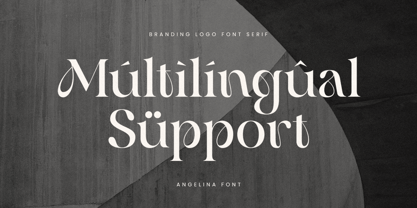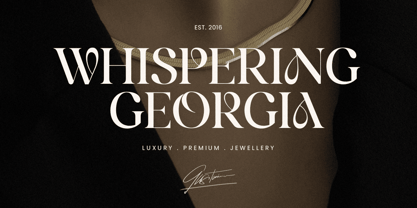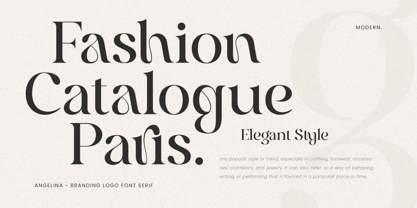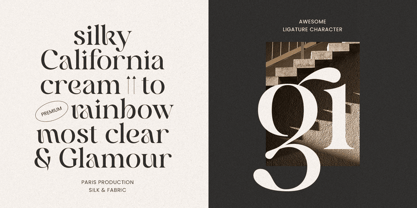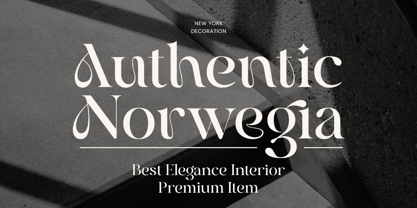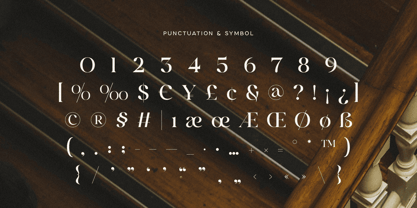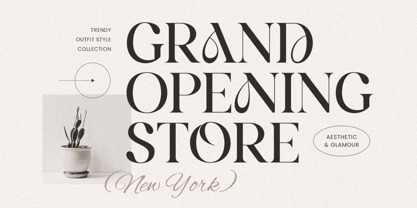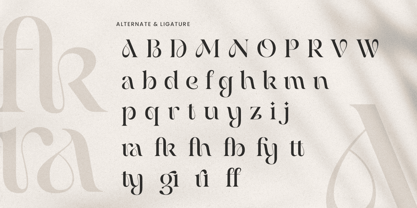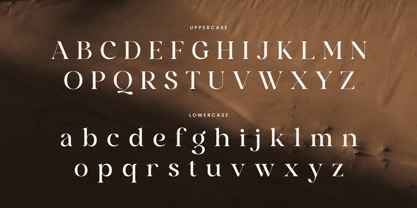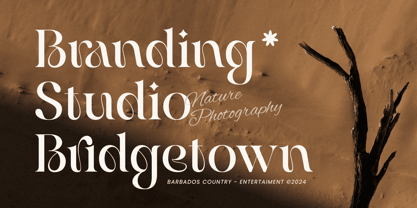
Angelina SS
by Sensatype Studio
The Angelina SS Font Family was designed by Zamroni Hamzah and published by Sensatype Studio. Angelina SS contains 2 styles and family package options. More about this family
Angelina - Branding Logo Font
Angelina is a beautifully refined branding logo font that exudes elegance and sophistication. With its delicate curves and classic forms, Angelina is perfect for luxury brands, fashion labels, and creative businesses seeking a timeless and graceful logo. Its stylish design ensures a striking visual presence that resonates with modern branding needs.
Designed with both functionality and aesthetics in mind, Angelina is versatile enough for logos, websites, business cards, and packaging. The font’s smooth, flowing lines add a sense of elegance to any project, helping brands make a lasting, memorable impression.
Angelina comes with alternative characters and supports multiple languages, making it ideal for designers looking to create distinctive and professional brand identities. Its timeless charm and luxurious feel make it a must-have for high-end projects.
Angelina Branding Logo Font Features:
• Elegant Ligature & Alternative Characters Ready
• Unique Punctuation, Number, and Symbol
• Uppercase and Lowercase
• Multilingual Support
• Opentype Features